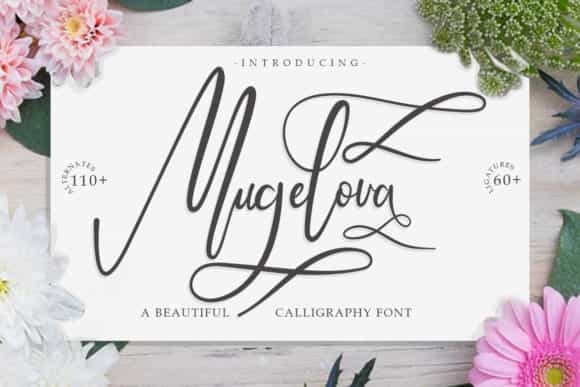
Mugelova beautiful script font is an ideal choice for the final touches of your most recent artwork as it provides an exquisite, timeless and trendy design. Mugelova has beautiful handwriting style perfect for a variety of uses including logos and branding, invitations, stationary, weddings, social media, advertisements, product labeling and packaging, photography, watermarking, special events or anything that requires the look of handwriting.